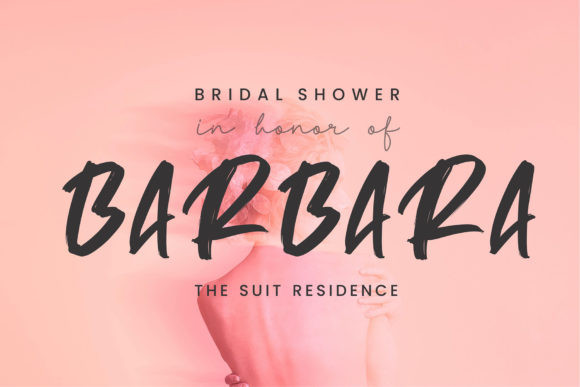
Meranda Font
Meranda is a playful and modern brushed display font. It is perfect for branding projects, logos, book cover designs, t-shirt designs, social media posts, and so much more.